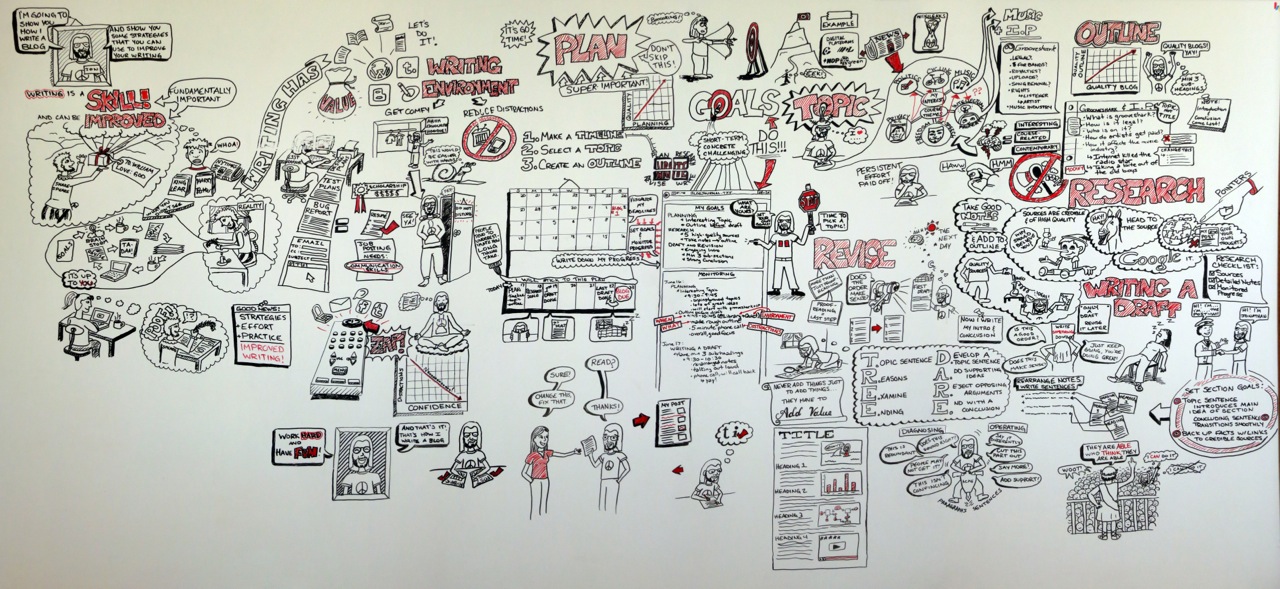
Best Font For Whiteboard Animation . We’re not just moving text around. Explore whiteboard fonts at myfonts. Can't go wrong with helvetica ofcourse. Every font is free to download! Click to find the best 11 free fonts in the whiteboard style. We pick fonts, colors, and motions that vibe with the overall feel. Unleash your design potential today! Discover a world of captivating typography for your creative projects. It’s art, right there on your screen. Proxima nova hands down a favorite sans serif as well as circular text (the ones spotify uses). Fonts come to life in the best kinetic typography animations, from music videos, movie tributes and more. Click to find the best 30 free fonts in the animation style. Every font is free to download! Every bounce, twist, and turn in typography animation is crafted to be aesthetically pleasing.
Fonts come to life in the best kinetic typography animations, from music videos, movie tributes and more. Click to find the best 11 free fonts in the whiteboard style. Every font is free to download! Explore whiteboard fonts at myfonts. Discover a world of captivating typography for your creative projects. We pick fonts, colors, and motions that vibe with the overall feel. Click to find the best 30 free fonts in the animation style. It’s art, right there on your screen. Every font is free to download! Proxima nova hands down a favorite sans serif as well as circular text (the ones spotify uses).
Best Font For Whiteboard Animation Can't go wrong with helvetica ofcourse. Every font is free to download! It’s art, right there on your screen. We pick fonts, colors, and motions that vibe with the overall feel. Every font is free to download! We’re not just moving text around. Fonts come to life in the best kinetic typography animations, from music videos, movie tributes and more. Proxima nova hands down a favorite sans serif as well as circular text (the ones spotify uses). Explore whiteboard fonts at myfonts. Can't go wrong with helvetica ofcourse. Unleash your design potential today! Click to find the best 30 free fonts in the animation style. Every bounce, twist, and turn in typography animation is crafted to be aesthetically pleasing. Discover a world of captivating typography for your creative projects. Click to find the best 11 free fonts in the whiteboard style.
How to create Whiteboard Animation using After Effects and Illustrator Best Font For Whiteboard Animation We’re not just moving text around. It’s art, right there on your screen. Fonts come to life in the best kinetic typography animations, from music videos, movie tributes and more. Proxima nova hands down a favorite sans serif as well as circular text (the ones spotify uses). Click to find the best 30 free fonts in the animation style. Explore. Best Font For Whiteboard Animation.
Custom Whiteboard Animation Videos for an Artsy touch Best Font For Whiteboard Animation Fonts come to life in the best kinetic typography animations, from music videos, movie tributes and more. Click to find the best 11 free fonts in the whiteboard style. We’re not just moving text around. Every font is free to download! Discover a world of captivating typography for your creative projects. Click to find the best 30 free fonts in. Best Font For Whiteboard Animation.
6 Best Whiteboard Animation Courses For Beginners in 2024 Best Font For Whiteboard Animation We pick fonts, colors, and motions that vibe with the overall feel. Click to find the best 30 free fonts in the animation style. Click to find the best 11 free fonts in the whiteboard style. It’s art, right there on your screen. We’re not just moving text around. Explore whiteboard fonts at myfonts. Fonts come to life in the. Best Font For Whiteboard Animation.
Top 115+ How to learn whiteboard animation Best Font For Whiteboard Animation We pick fonts, colors, and motions that vibe with the overall feel. It’s art, right there on your screen. Every font is free to download! Discover a world of captivating typography for your creative projects. Unleash your design potential today! Every bounce, twist, and turn in typography animation is crafted to be aesthetically pleasing. We’re not just moving text around.. Best Font For Whiteboard Animation.
How to Create a Whiteboard Animation in PowerPoint Best Font For Whiteboard Animation Click to find the best 11 free fonts in the whiteboard style. Every font is free to download! Proxima nova hands down a favorite sans serif as well as circular text (the ones spotify uses). Fonts come to life in the best kinetic typography animations, from music videos, movie tributes and more. We’re not just moving text around. We pick. Best Font For Whiteboard Animation.
How to Make a Whiteboard Animation (7 Steps)? Best Font For Whiteboard Animation Proxima nova hands down a favorite sans serif as well as circular text (the ones spotify uses). Can't go wrong with helvetica ofcourse. Unleash your design potential today! Click to find the best 11 free fonts in the whiteboard style. Every font is free to download! We’re not just moving text around. Discover a world of captivating typography for your. Best Font For Whiteboard Animation.
Powerpoint Whiteboard Animation Tutorial YouTube Best Font For Whiteboard Animation We pick fonts, colors, and motions that vibe with the overall feel. Explore whiteboard fonts at myfonts. Every font is free to download! Discover a world of captivating typography for your creative projects. Unleash your design potential today! We’re not just moving text around. Click to find the best 11 free fonts in the whiteboard style. Click to find the. Best Font For Whiteboard Animation.
Everything About Whiteboard Animation Renderforest Best Font For Whiteboard Animation Every font is free to download! Explore whiteboard fonts at myfonts. We’re not just moving text around. Every font is free to download! Unleash your design potential today! Click to find the best 30 free fonts in the animation style. Discover a world of captivating typography for your creative projects. Click to find the best 11 free fonts in the. Best Font For Whiteboard Animation.